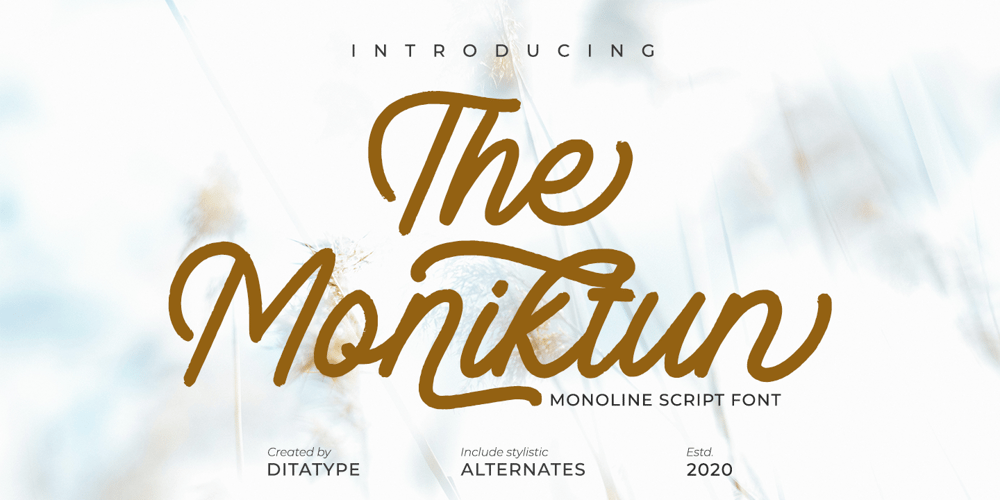
The Moniktun
The Moniktun font
The Moniktun Font Family was designed by Donis Miftahudin and published by Ditatype. The Moniktun contains 1 styles and family package options. The Moniktun is a monoline script font. Made for any professional project branding that need a modern and attractive typeface. It is the best for logos, branding and quotes. Every letter has a unique and beautiful touch.Includes:The Moniktun (OTF)Features: Standart Ligatures Stylistic Set Multilingual Support PUA Encoded Numerals and Punctuation Thank you for downloading premium fonts from Dita Type